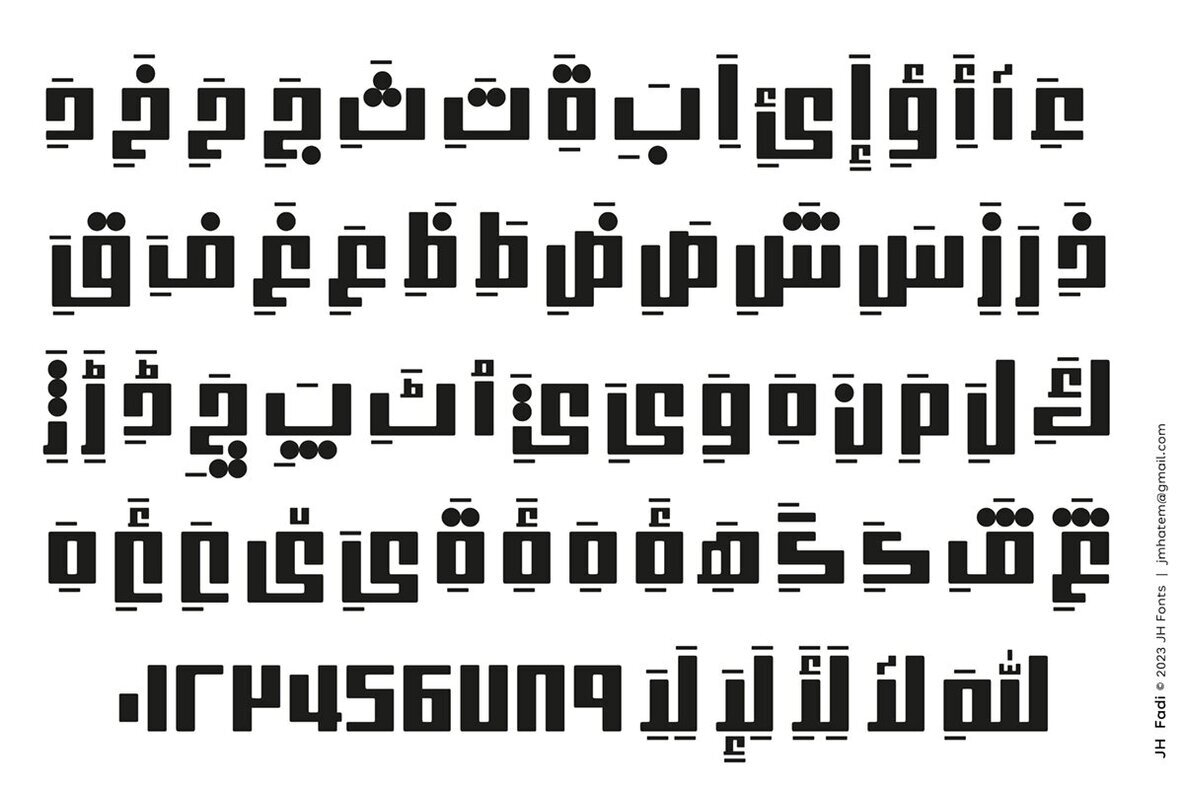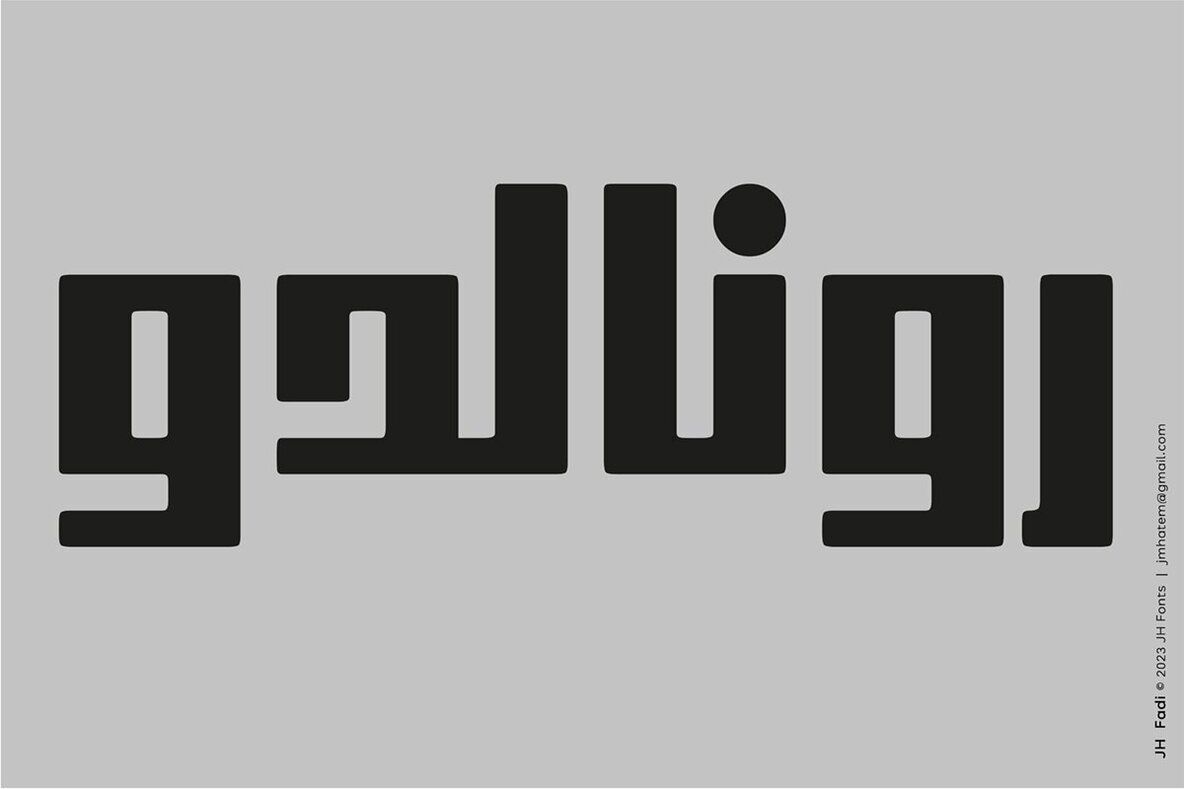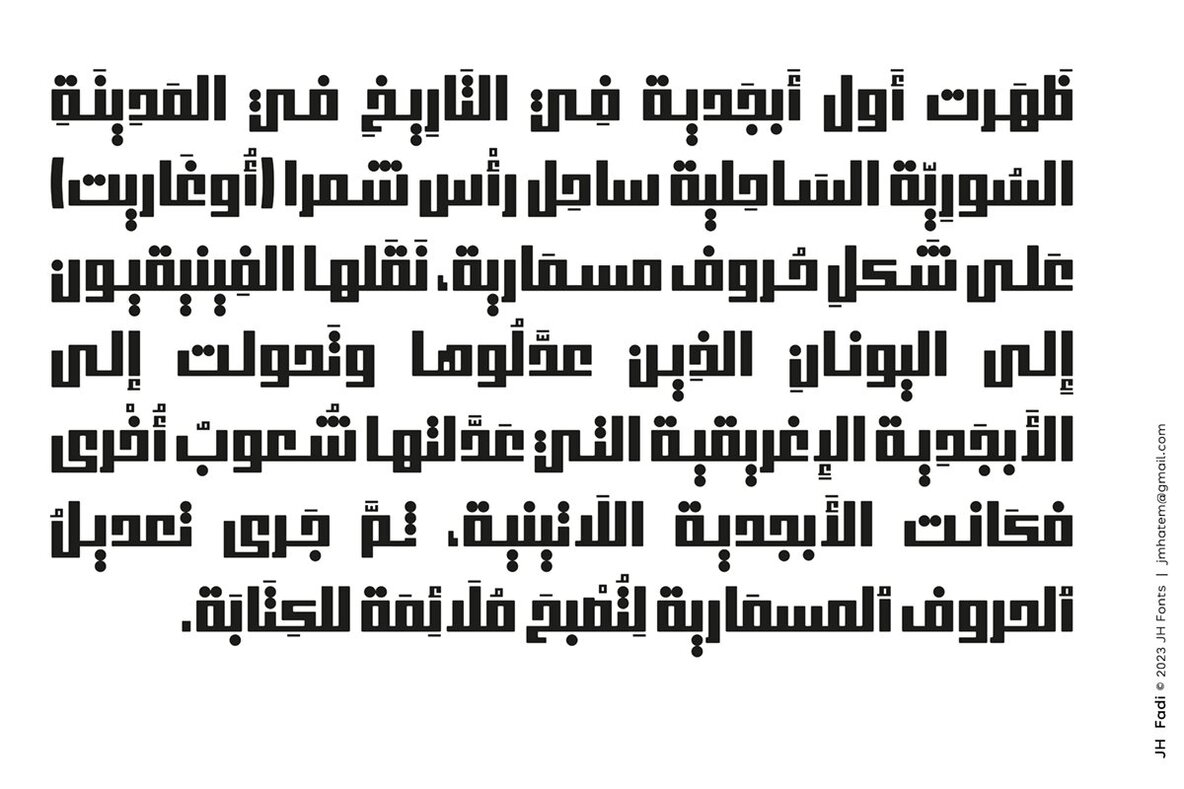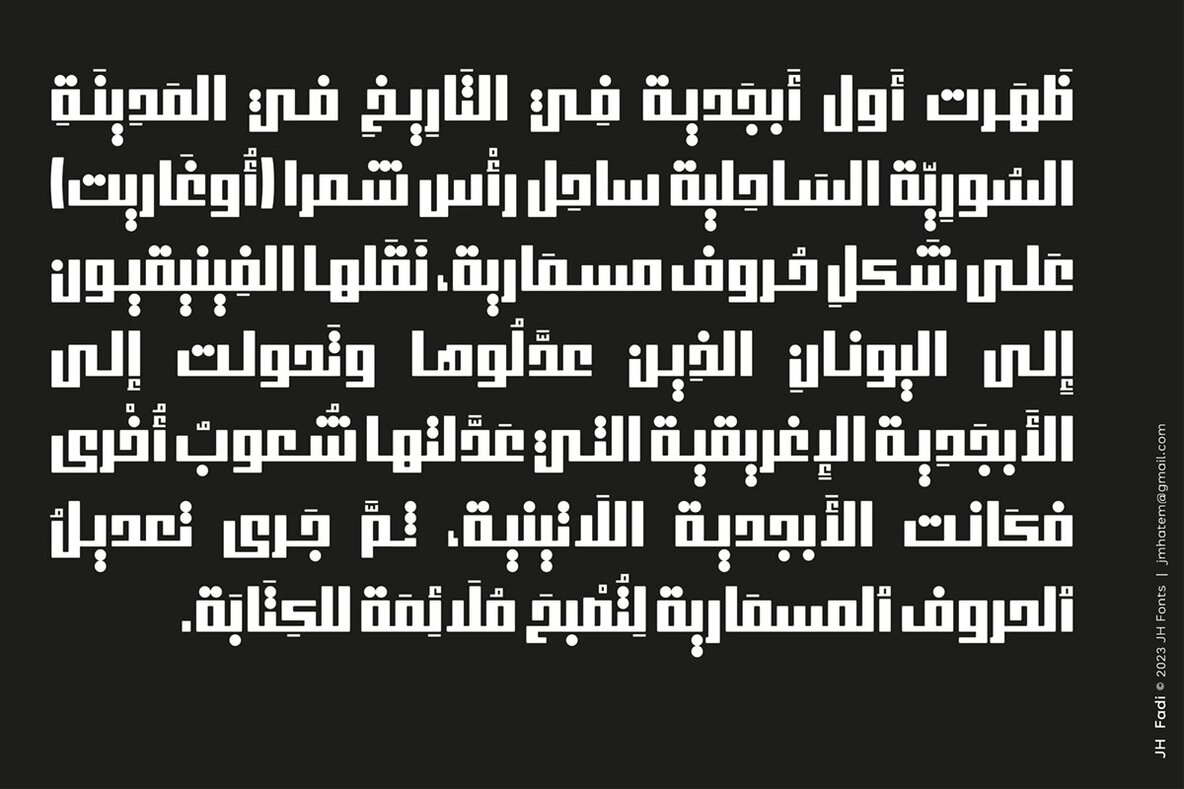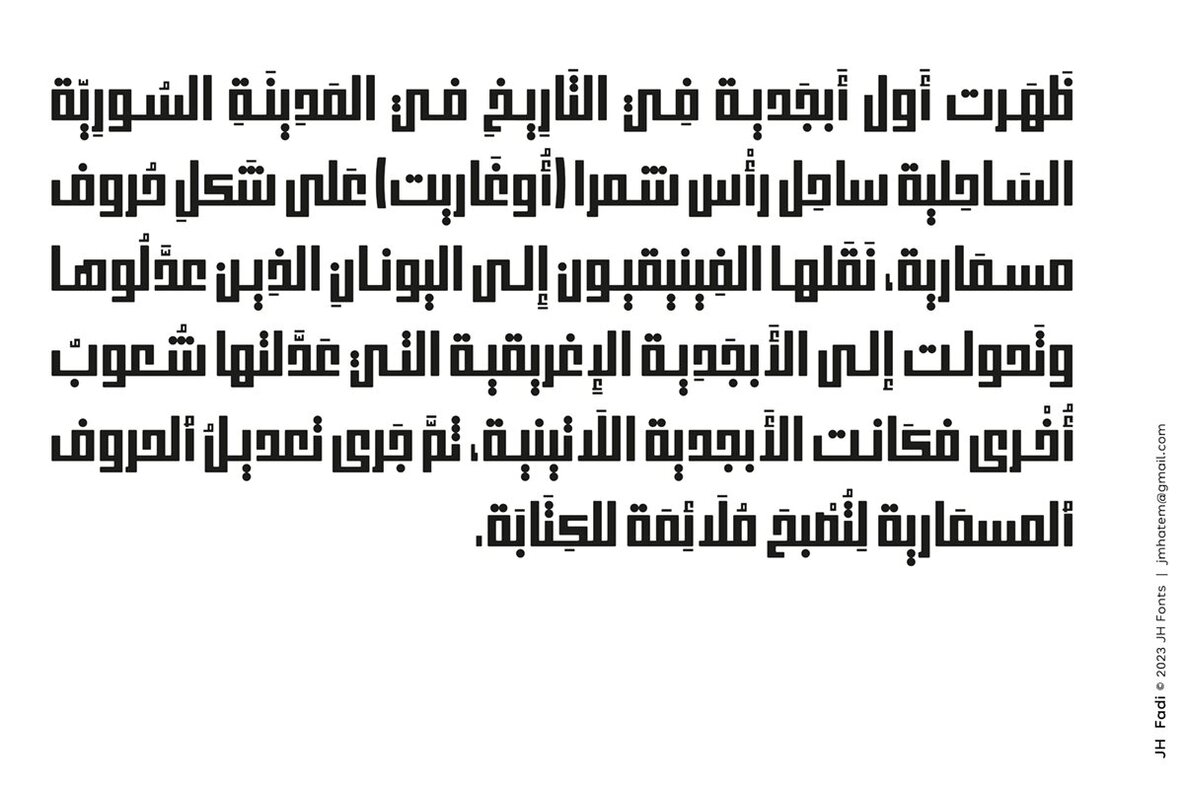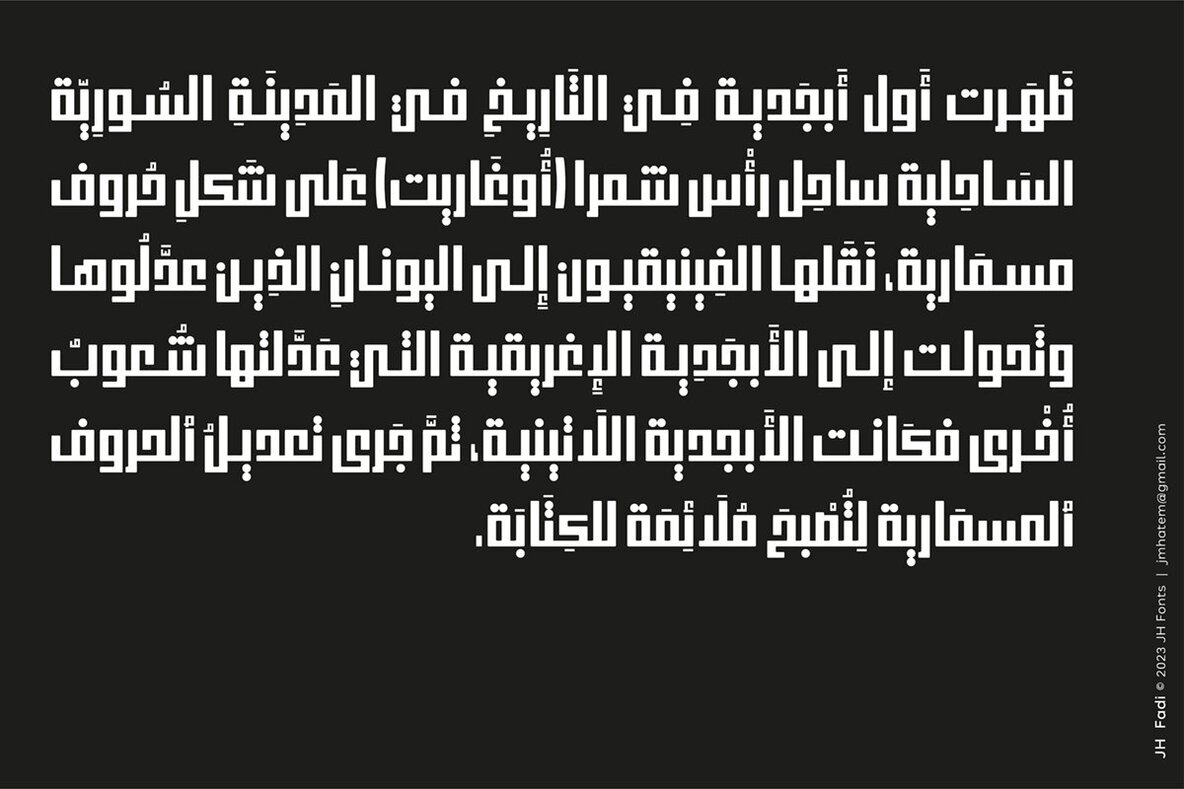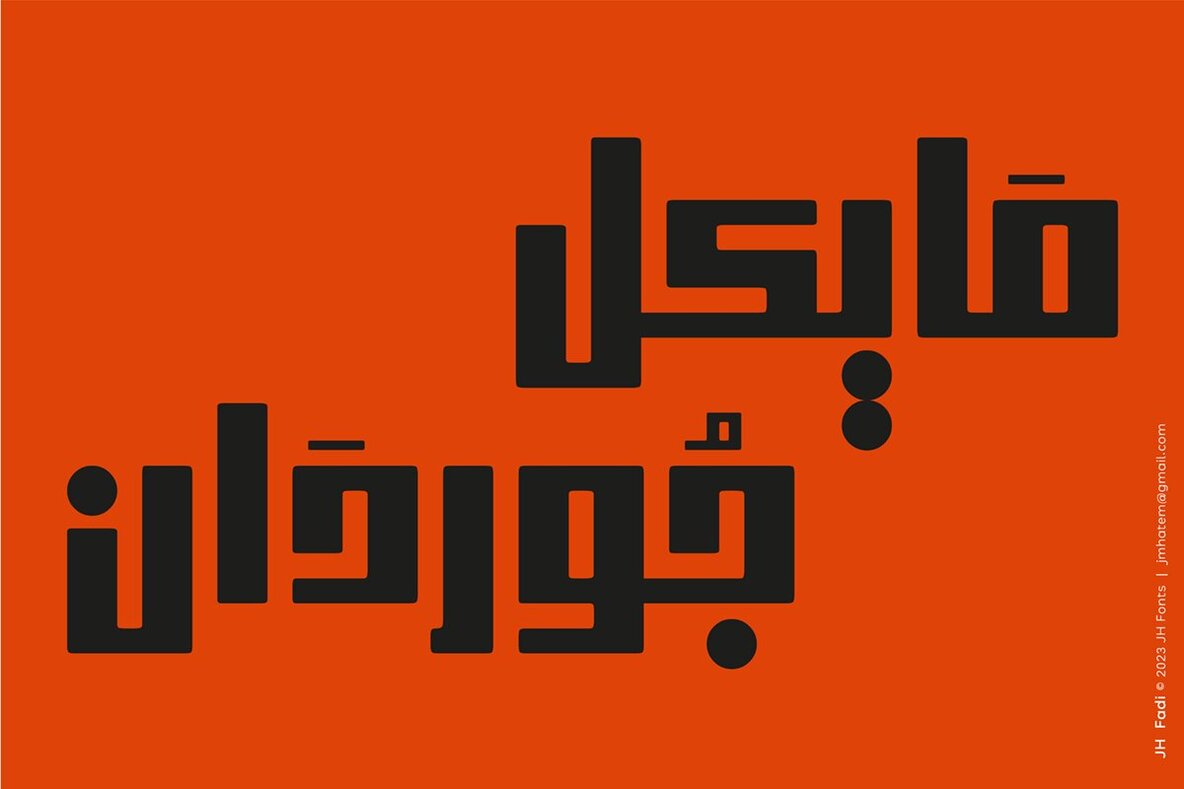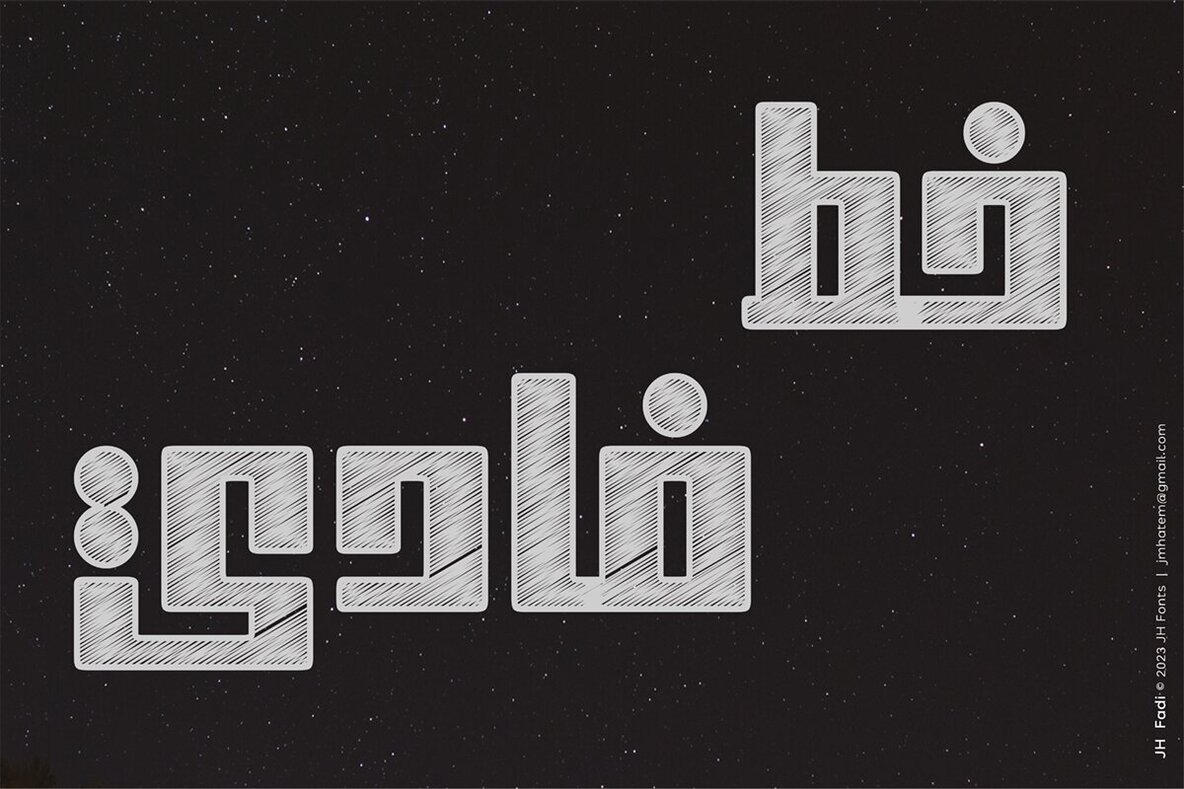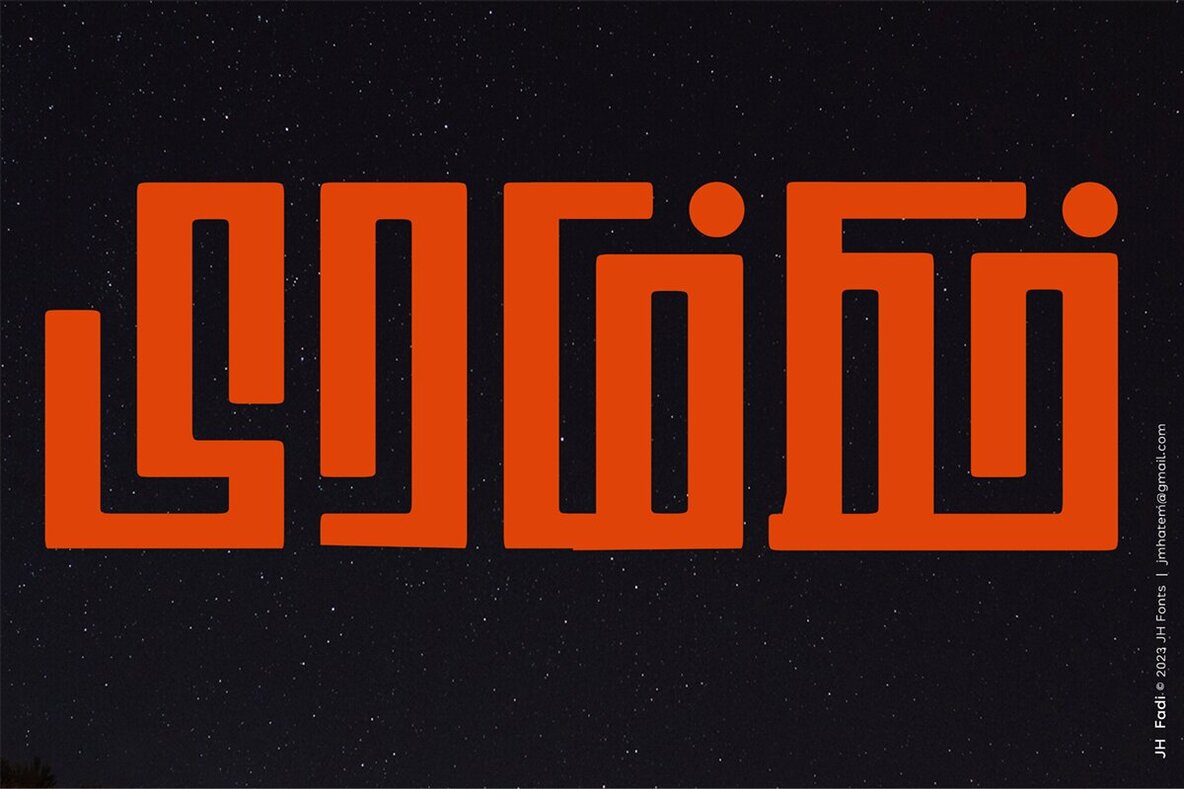
JH Fadi Font
JH Fadi is an Arabic modern square koufi typeface, including two weights; it is typical for headlines, logo design, branding & signage... The diacritic positioning is fine tuned per the publishers requirements.